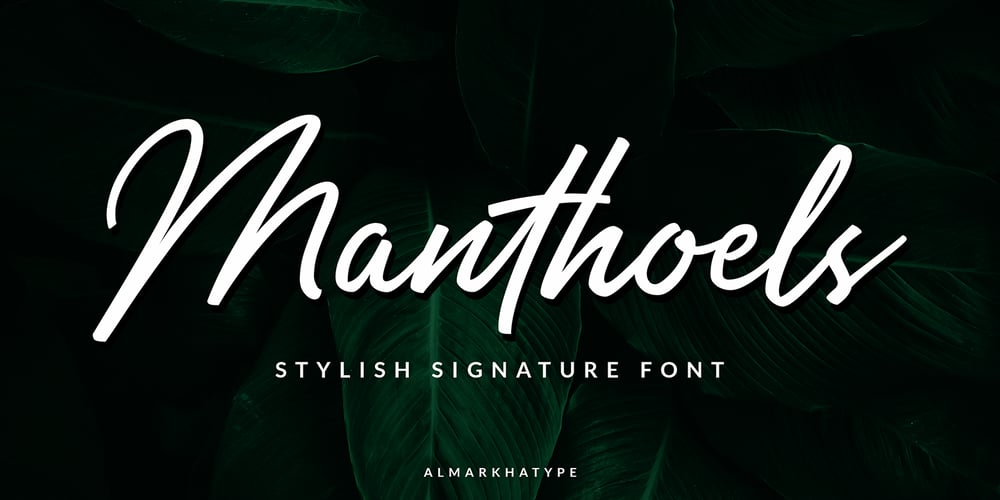
Manthoels Font Family was designed by Abdul Malik Wisnu and published by Almarkha Type. Manthoels contains 2 styles and family package options. Manthoels is our new Stylish Signature font, a fashionable and super-chilled sexy script. Manthoels was created to look as close to a natural handwritten script as possible. Built with OpenType features, this script comes to life as if you are writing it yourself. Thanks to the very natural writing techniques that look beautiful and elegant, this font is very suitable to be used to brand a product because if you write a brand name it will look like your company signature. Manthoels is perfect for bloggers, trademarks, magazines, fashion, wedding invitations, greeting cards. It’s highly recommended to use it in OpenType capable software – there are plenty out there nowadays as technology catches up with design.Other than Photoshop, Illustrator and Indesign, many standard simple programs now come with OpenType capabilities – even the most basic ones such as Apple’s Text Edit, Pages, Keynote, iBooks Author, and others. Thanks for checking Manthoels out, and feel free to drop me a message if you have any queries. almarkhatype@gmail.com